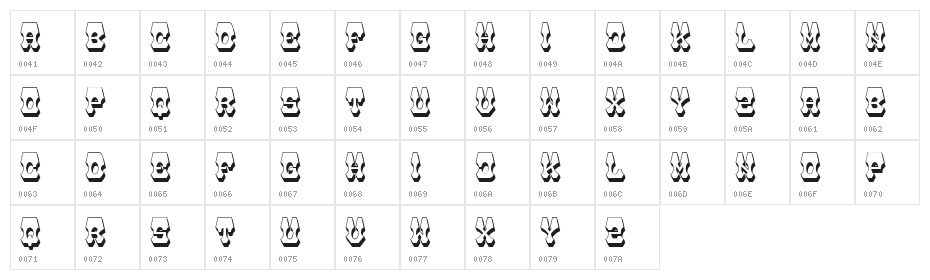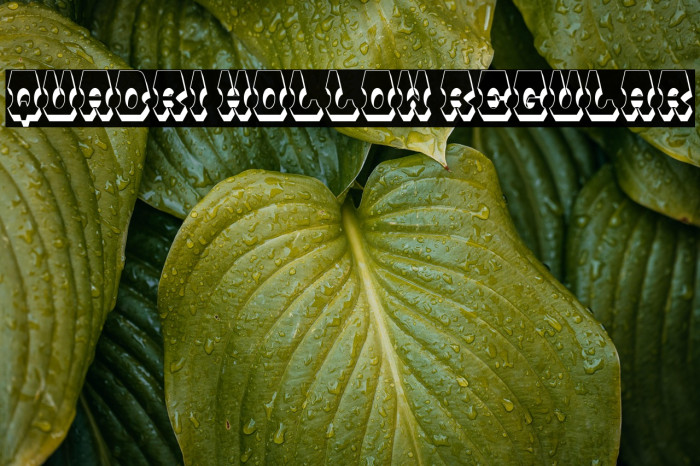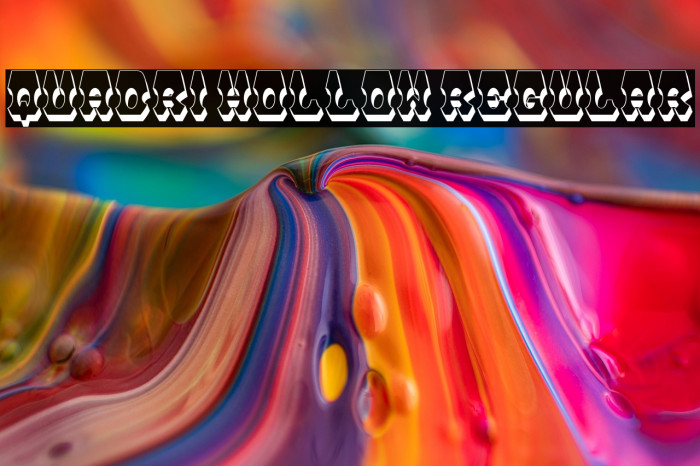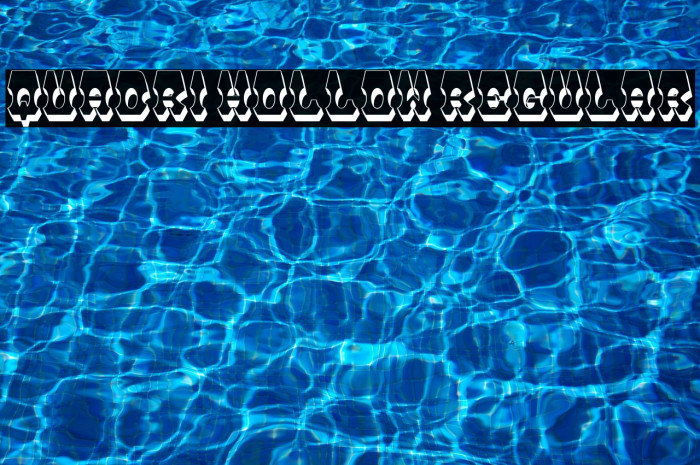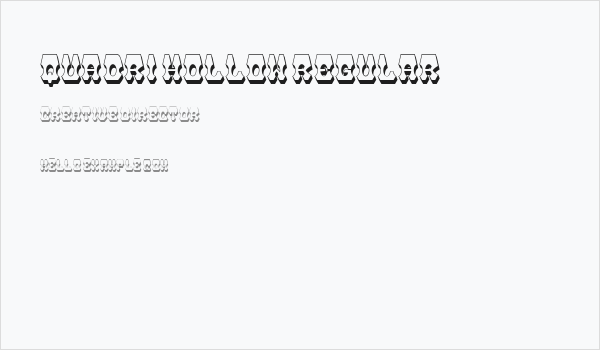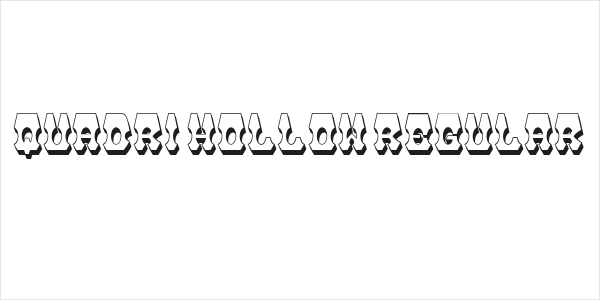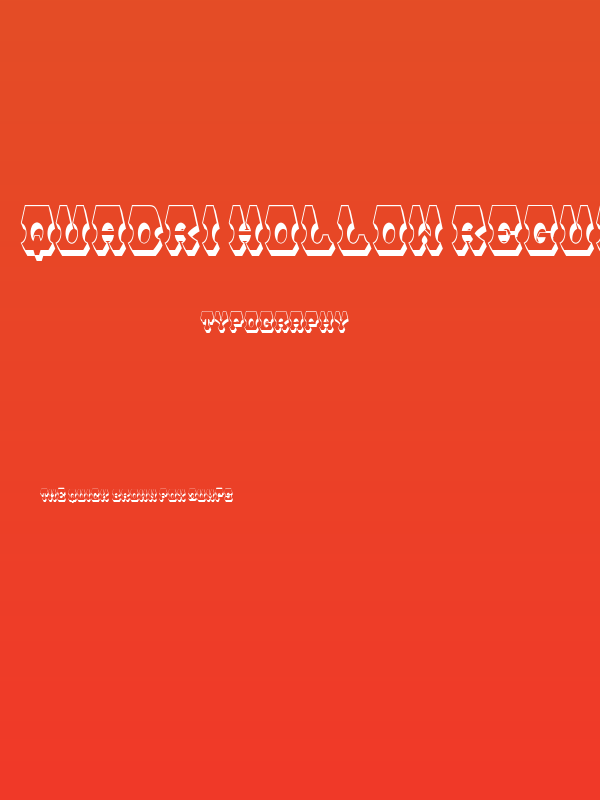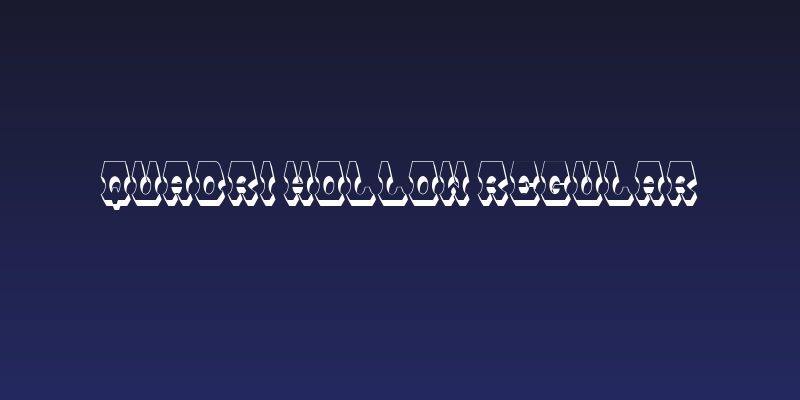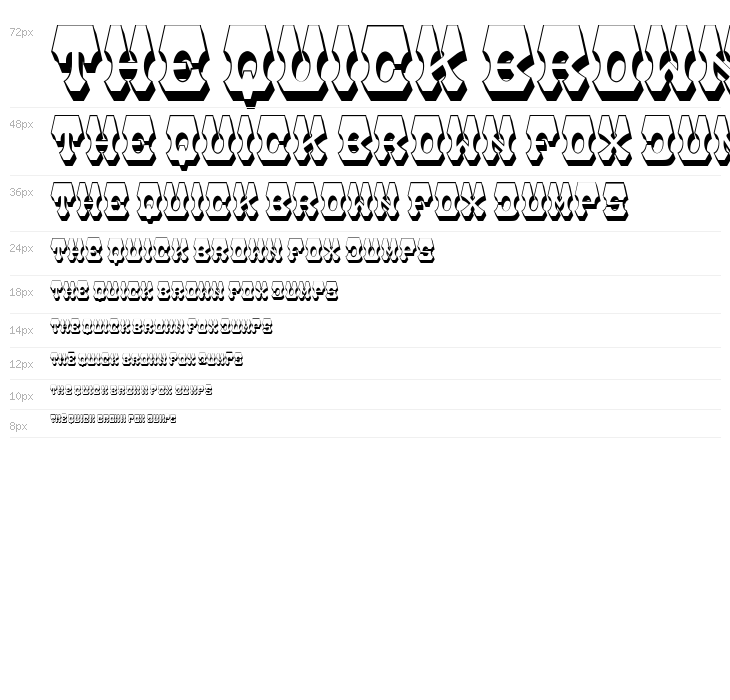
Quadri Hollow Regular Font
Quadri Hollow Regular Description
This font features a bold, three-dimensional appearance with a hollow center, creating a striking visual effect. The geometric shapes and sharp angles give it a modern and futuristic feel. Each character is outlined, adding depth and dimension, while the hollow interior maintains a sense of lightness. The font's unique style makes it stand out, suitable for eye-catching designs. Its structured form and bold presence make it ideal for impactful headlines and titles. The font's design is consistent across all characters, ensuring a cohesive look in any project.
| Proposed Projects | Ideal for posters, logos, video game graphics, and futuristic-themed designs. |